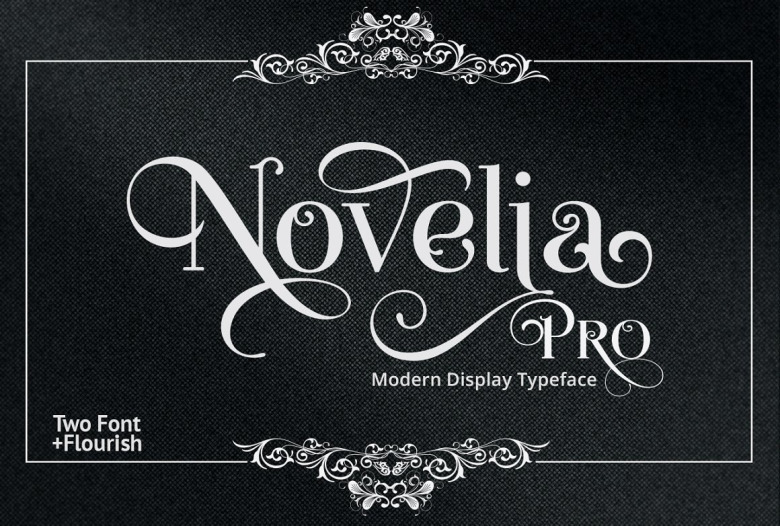
Novelia Pro Typeface
The beginning of the free font package today is a modern display typeface. Introducing Novelia Pro! It is designed and shared by joelmaker. Novelia Pro is a multi purpose font and ready to make a statement by adding elegant and unique flair to your next design project. Novelia can be used for various purposes such as posters, logos, t-shirt, signage, businnes card, magazines, book cover, wedding invitation, greeting cards etc.
Novelia Pro allows you to create custom dynamic text. you can access by turning on; Stylistic Alternates, Swash, as well as ligatures in Photoshop, Adobe Illustrator, Adobe InDesign or through a panel of glyphs such as Adobe Illustrator, Photoshop CC, Let’s switch from the reguler character into character alternative to get the text with the layout of your dreams.